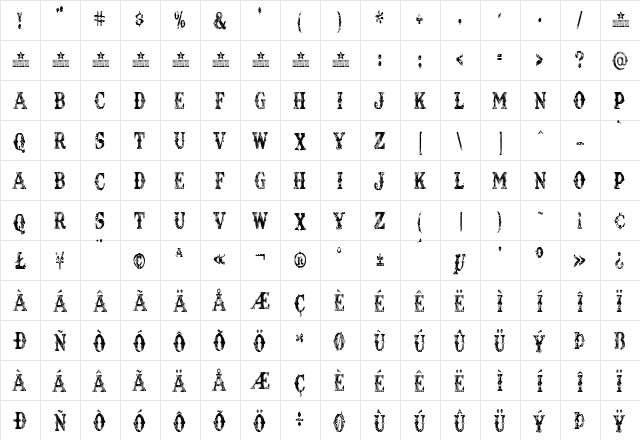
TEXAS TANGO EXTRA ROTH PERSONAL Condensed Regular
| Foundry | BILLY ARGEL |
| Designer | BILLY ARGEL |
Design Context for TEXAS TANGO EXTRA ROTH PERSONAL Typeface
TEXAS TANGO EXTRA ROTH PERSONAL is a composed and adaptable typeface that performs quietly and consistently across a wide range of design contexts. Its narrow stance lets it pack a punch even in space-constrained designs.